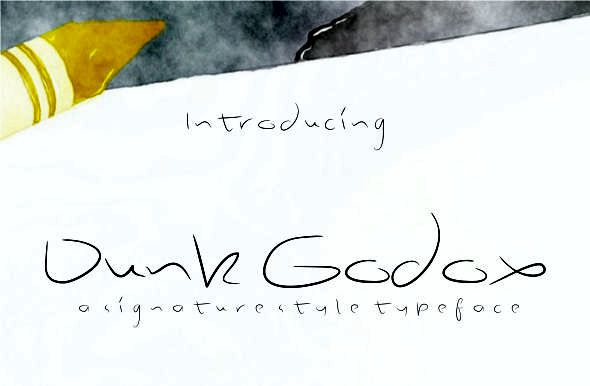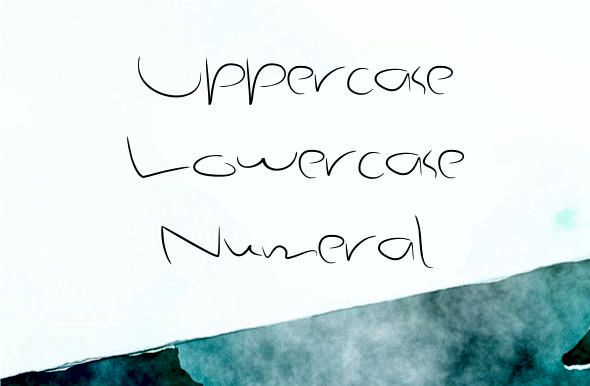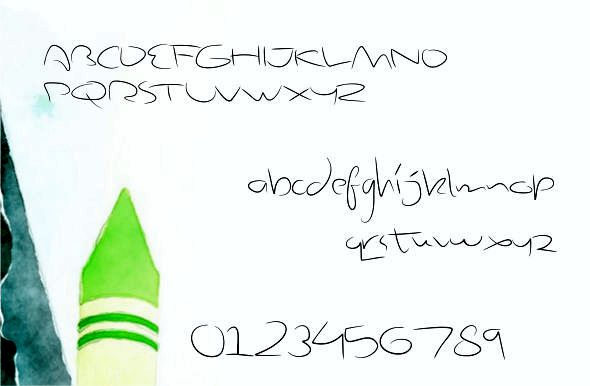
About Dunk Godox Font
Dunk Godox is a casual, fun blackletter font, created by using a brush pen. Clean and a little bit quirky, this font is the perfect fit for all of your logos, branding, social media, and crafty DIY projects.